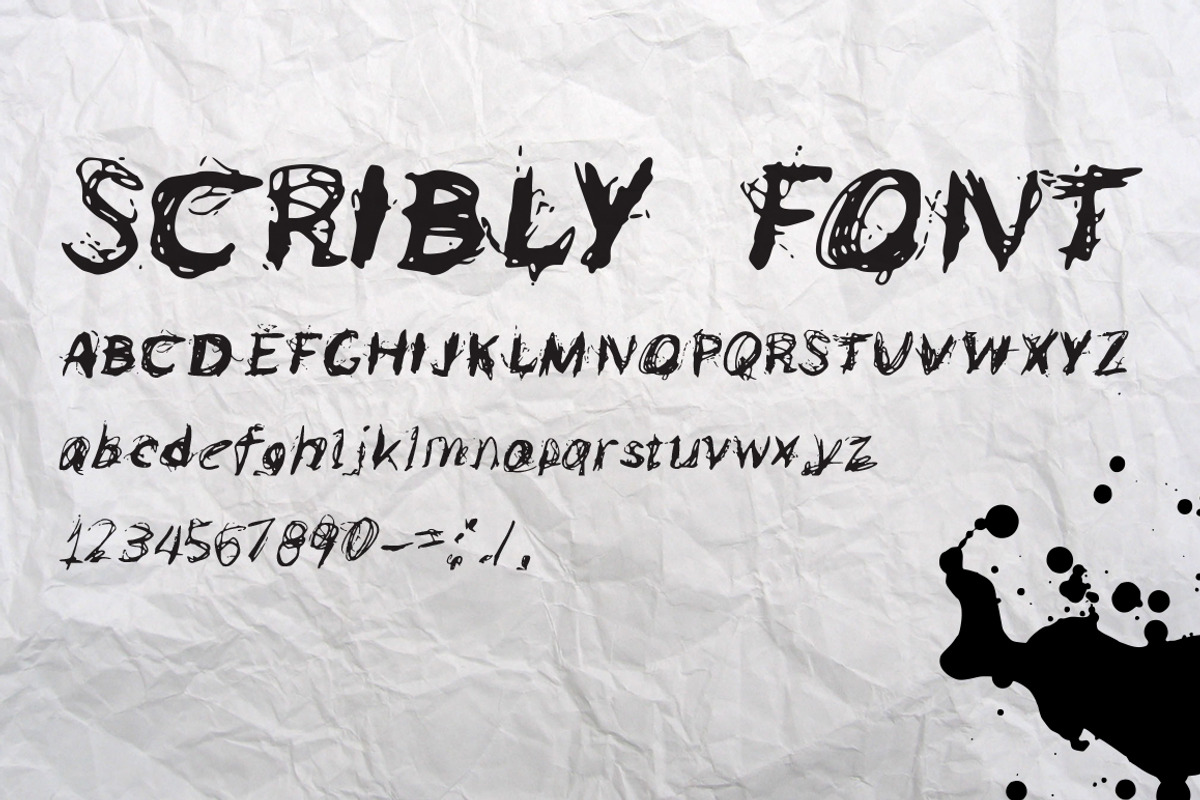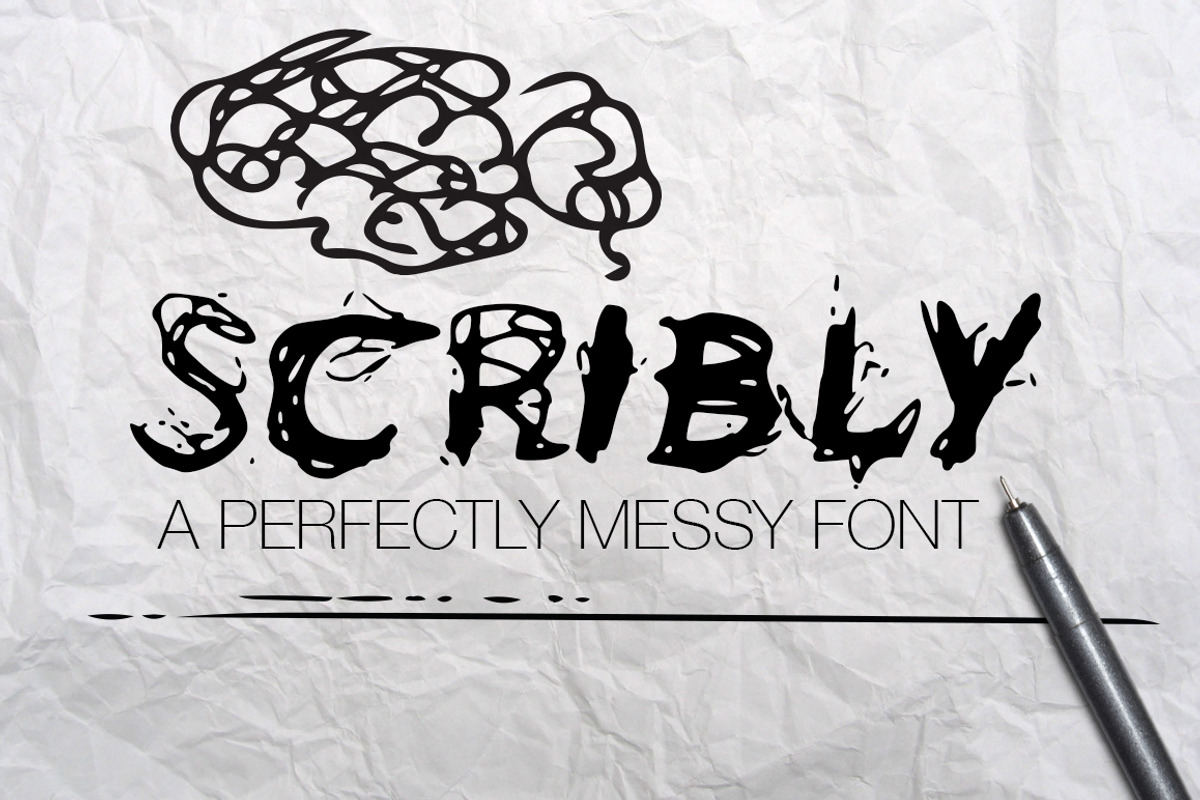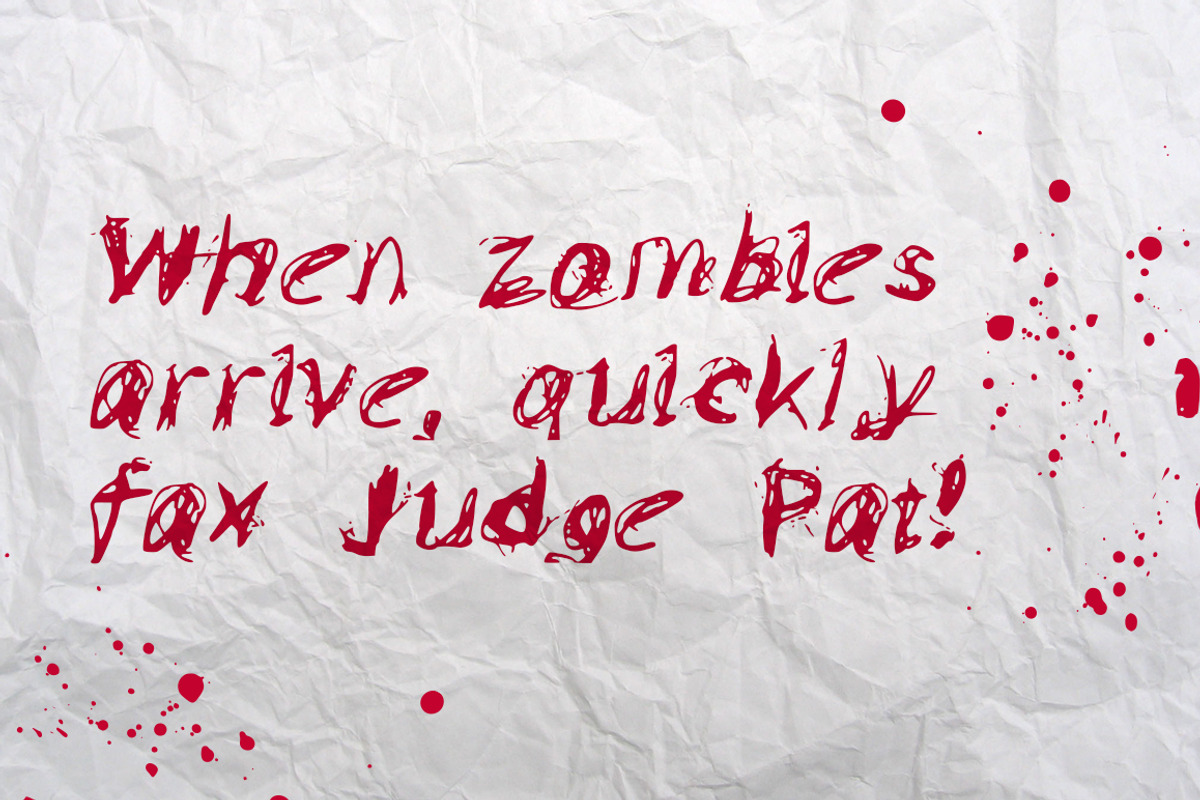
Scribly - a perfectly messy font
Scribly - a perfectly messy font by Mike Brennan Art & Design is a font selected for branding, posters, packaging, typography.
- Upper, lowercase, numbers and a few symbols.
Why Scribly - a perfectly messy font is worth a look
Scribly - a perfectly messy font by Mike Brennan Art & Design fits naturally into Branding, posters, packaging, typography.